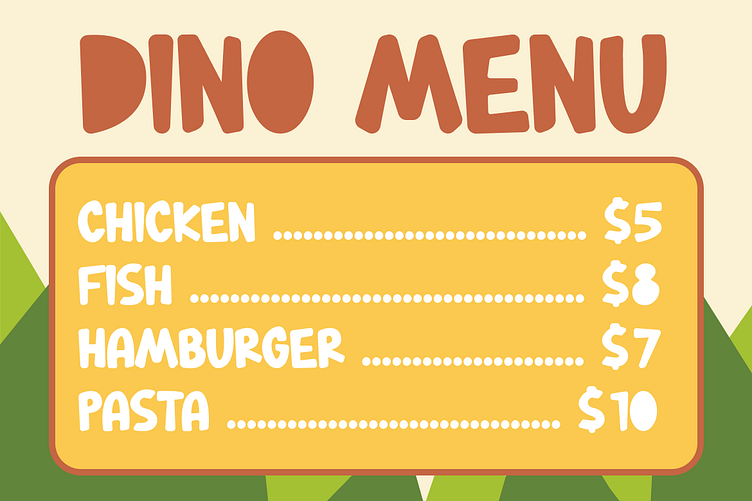
BUBASAUR – Kids Font
Bubasaur – Kids font
Introducing BUBASAUR – the perfect Kids Font for all your creative needs! This playful and Cute Font is designed to capture the essence of childhood fun, and it’s versatile enough to be used across a wide range of projects. Whether you’re creating content for YouTube, Instagram, or Gaming, BUBASAUR is the ideal choice.
With its fun and playful Movie Font style, BUBASAUR is perfect for adding a touch of humor and charm to your designs. This Sans Serif Font is easy to read and highly legible, making it perfect for titles and headlines.
At the heart of BUBASAUR is the idea that children’s world is all about happiness and joy. This Instagram Font will help you capture the same feeling in your designs, making your content more engaging and relatable to your audience.